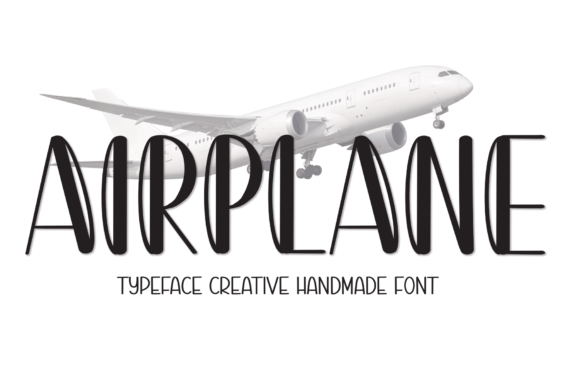
Introducing Airplane Font, the ultimate display font that brings a sweet and friendly touch to your designs. Created by William Jhordy, this simple yet captivating font is the perfect addition to your font collection.
Airplane Font is not just any font, it's a font that embodies simplicity and elegance. With its fresh and neat appearance, it is ideal for designing wedding invitations, greeting cards, logos, and even tattoos. That's right, this font is perfect for creating unique and eye-catching tattoos that are sure to turn heads.
With Airplane Font, you don't have to worry about being limited in your design options. It's a font that is versatile and adaptable, allowing you to create a wide range of designs. Whether you're looking to create a design that is elegant and sophisticated or one that is playful and fun, Airplane Font has got you covered.
But that's not all. This font is also perfect for creating designs for businesses that want to stand out from the crowd. With its simple yet captivating appearance, Airplane Font is perfect for creating logos, business cards, and other marketing materials that will make a lasting impression on your customers.
In summary, Airplane Font is a must-have for anyone looking for a simple yet captivating font that can be used for a wide range of designs. Whether you're designing wedding invitations, greeting cards, logos, or tattoos, Airplane Font is the perfect font for the job. So what are you waiting for? Download Airplane Font today and take your designs to new heights!